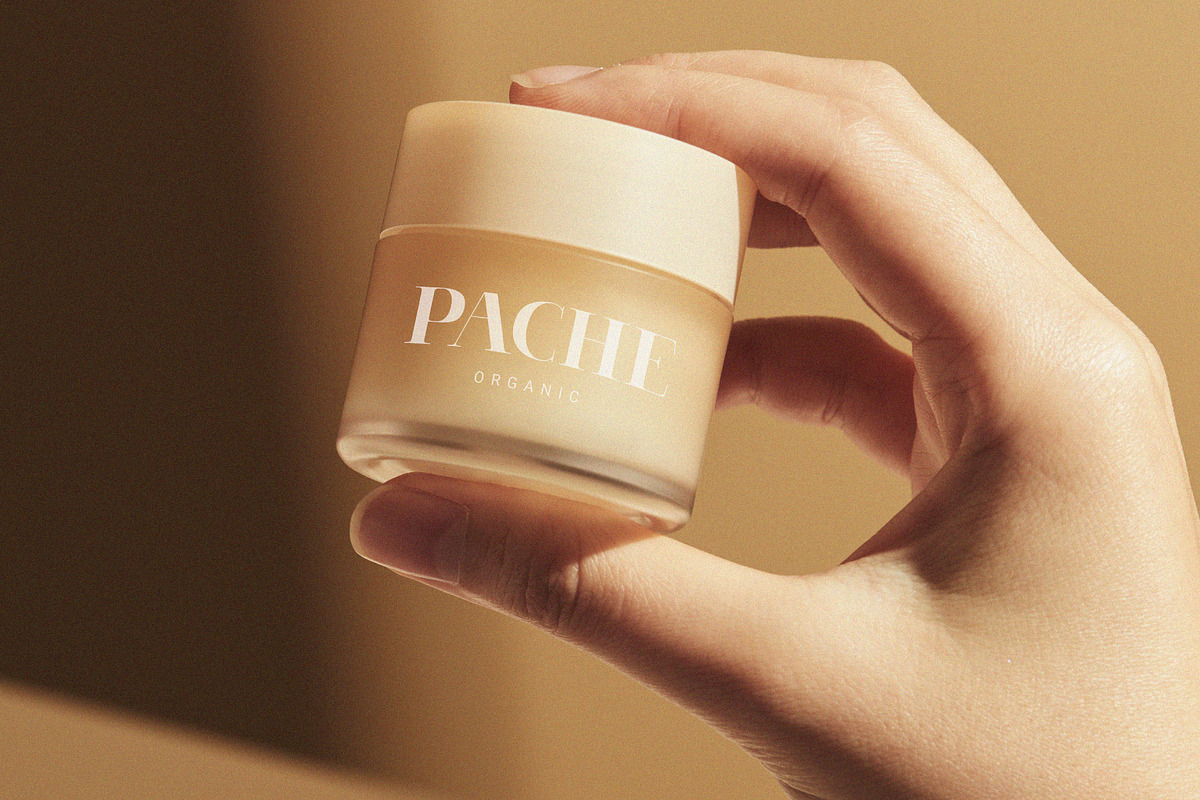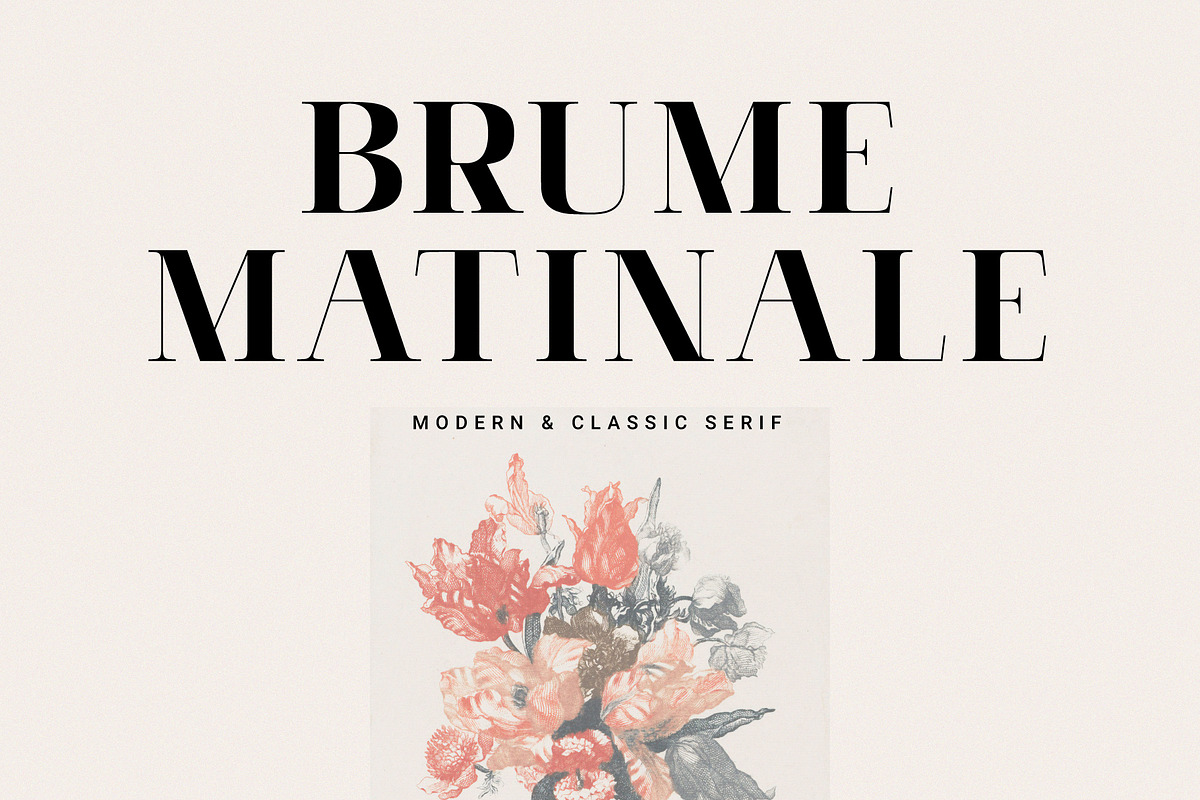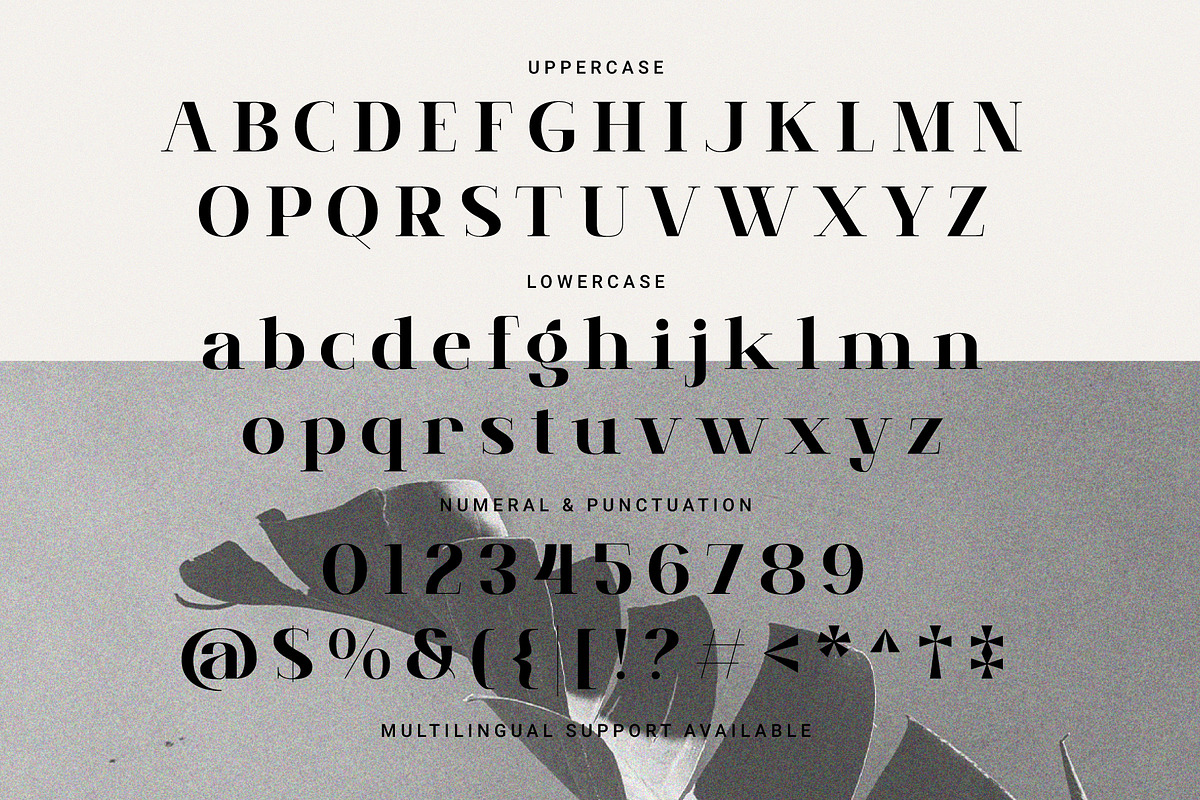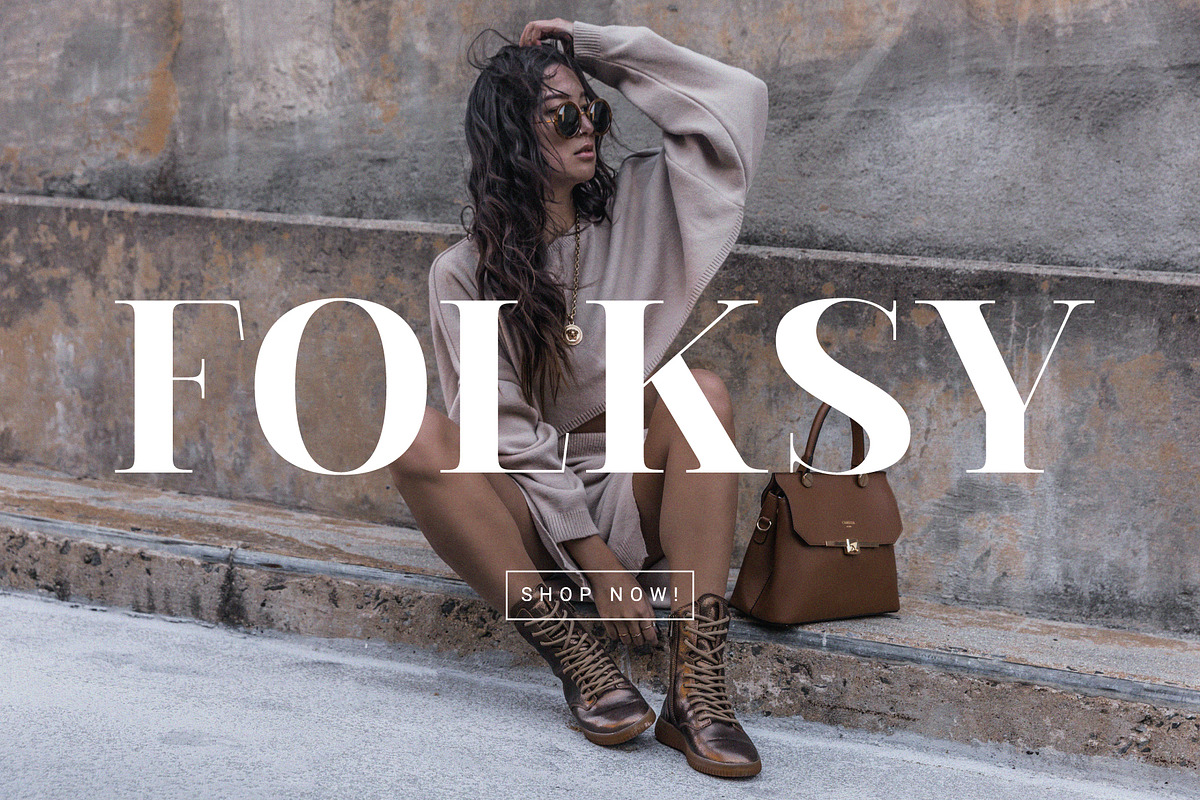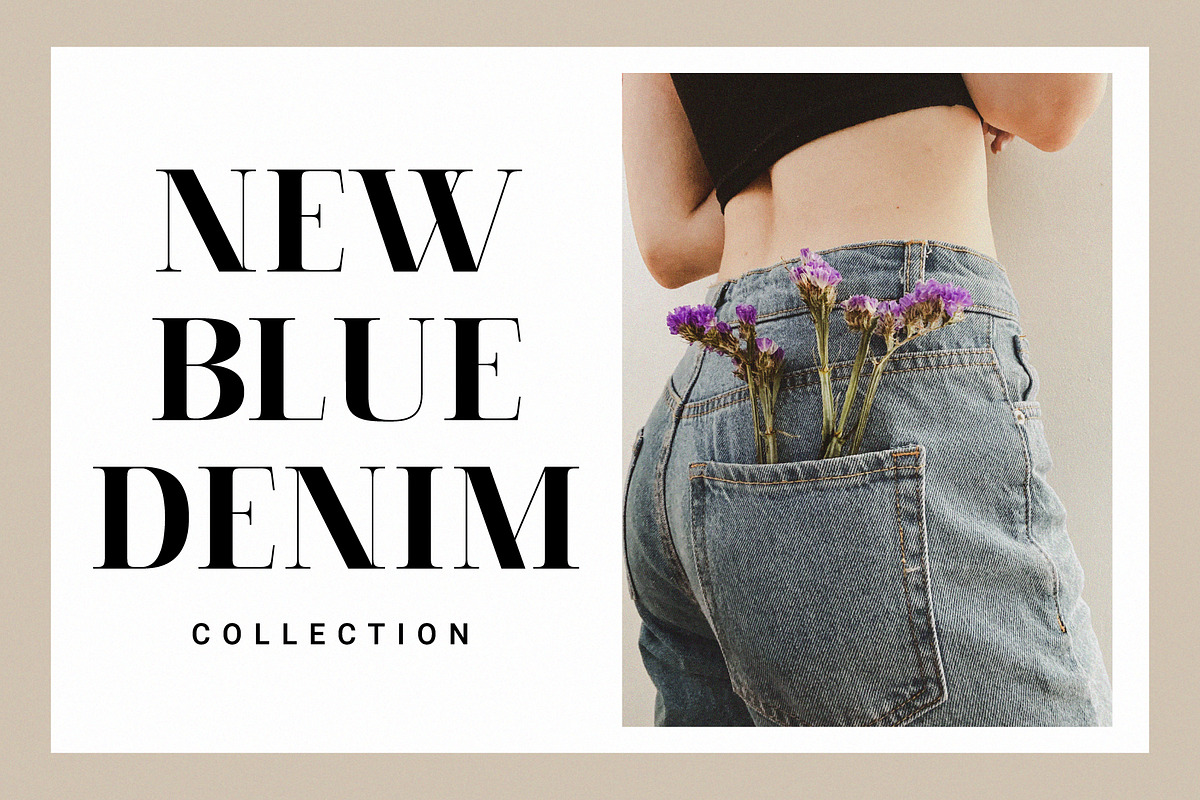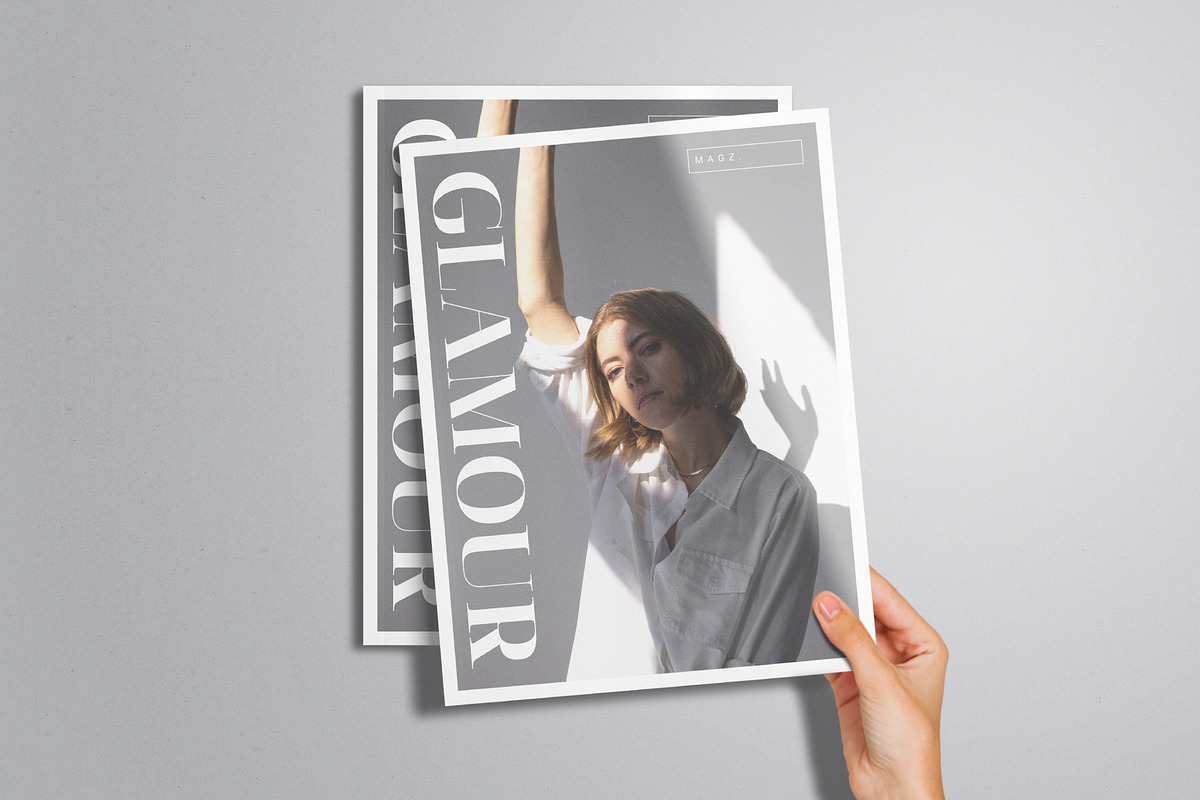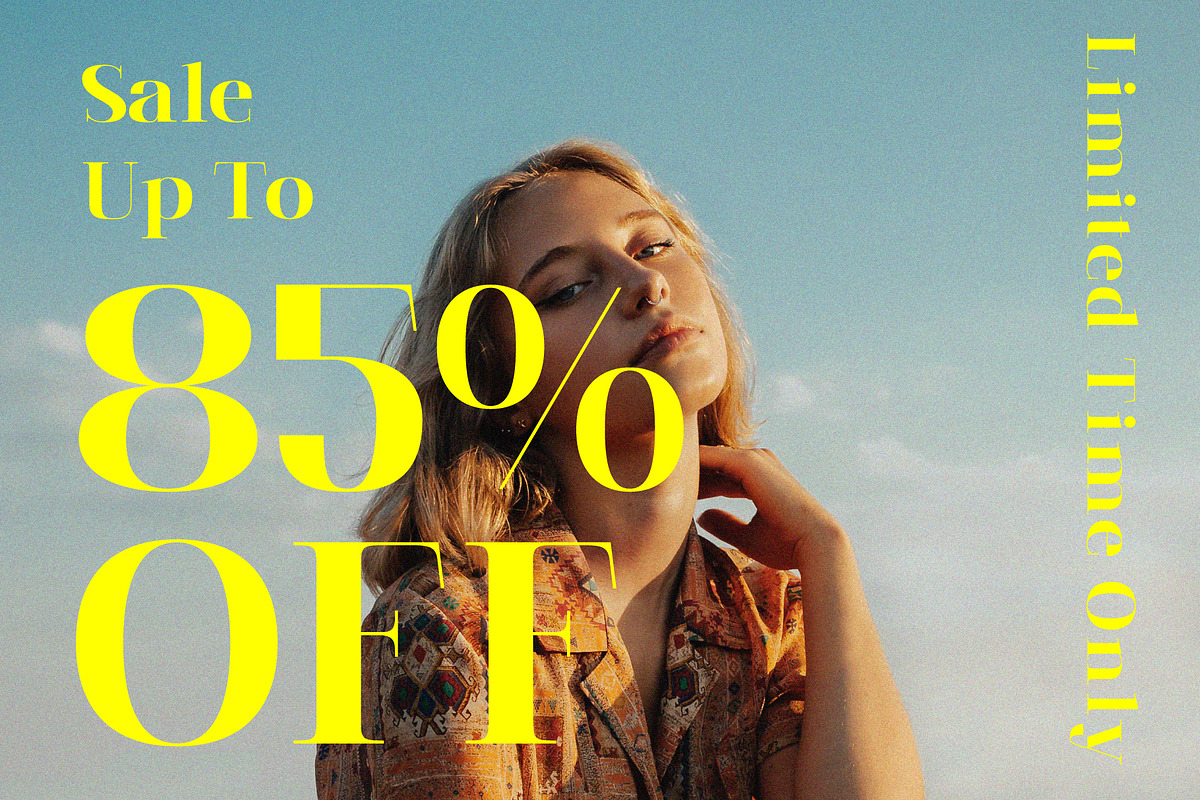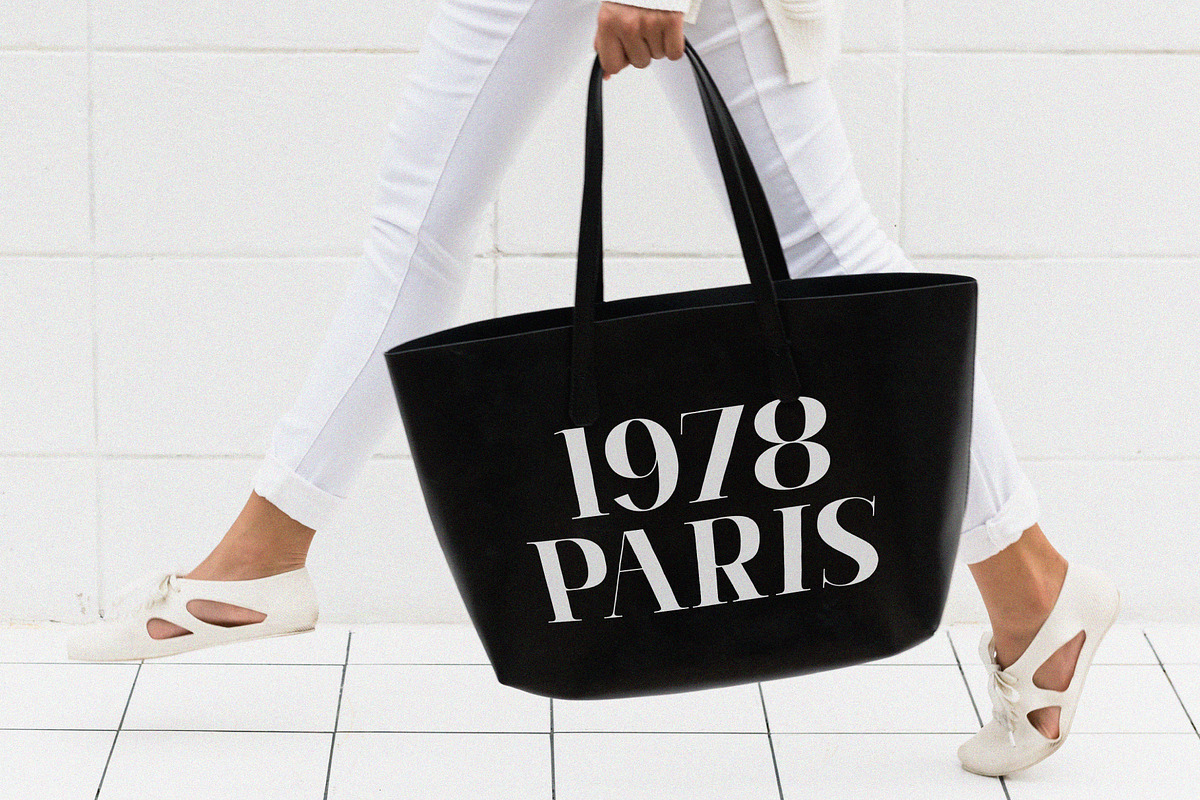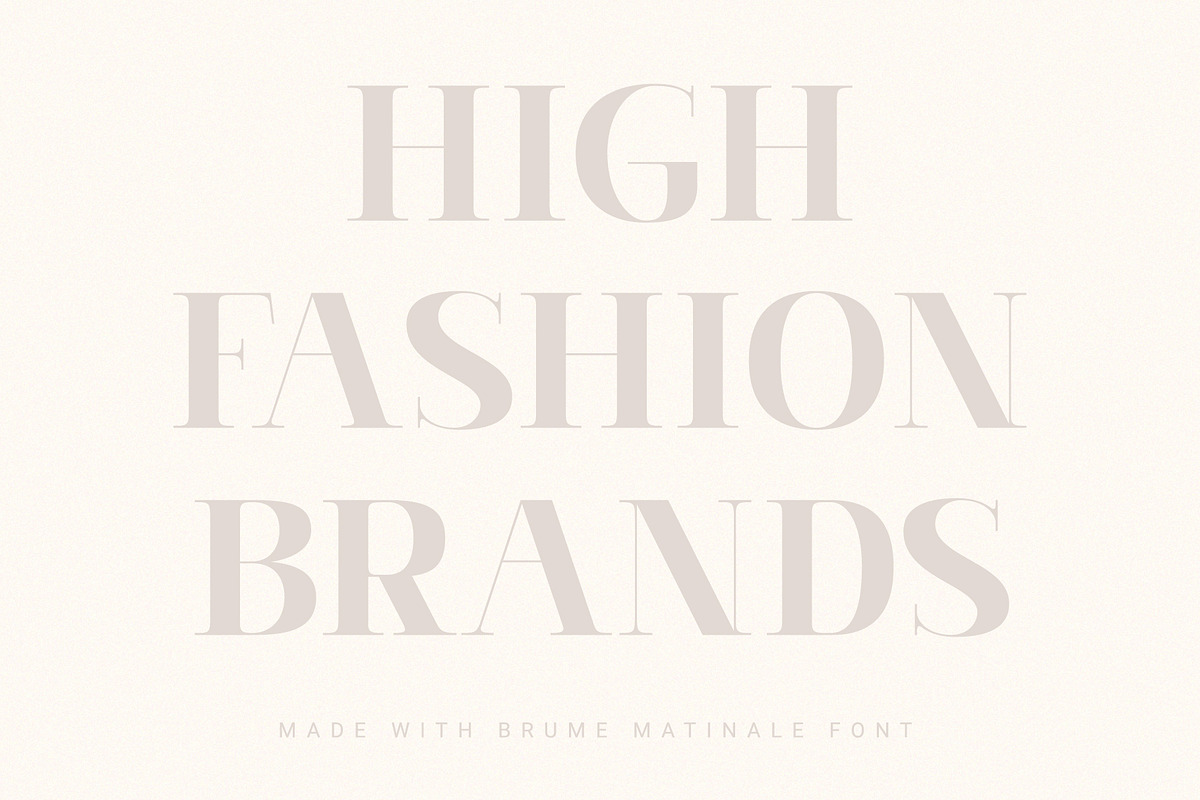
Brume Matinale
Brume Matinale – Modern & Classic Serif
A charming font for the fashion world with a modern and classic look. Perfect for designs like creative posts, posters, magazines, logos and more.
- Features: Uppercase, Lowercase, Numeral, Punctuation & Multilingual.